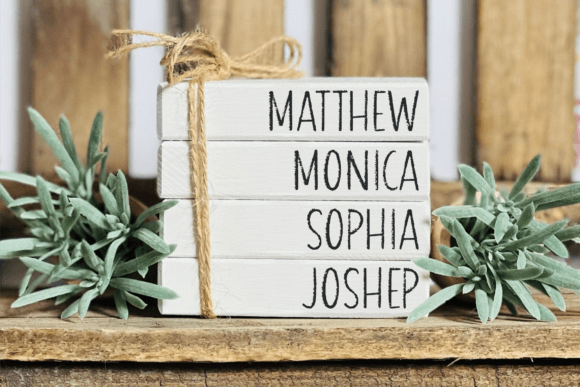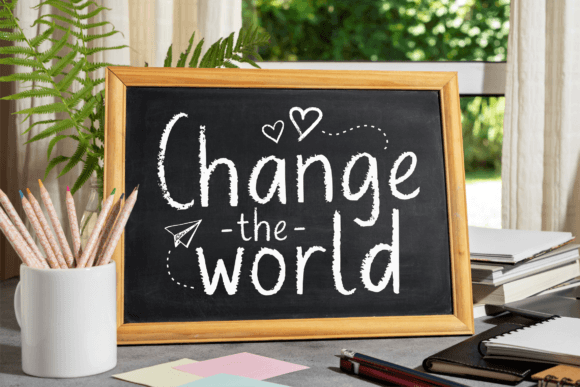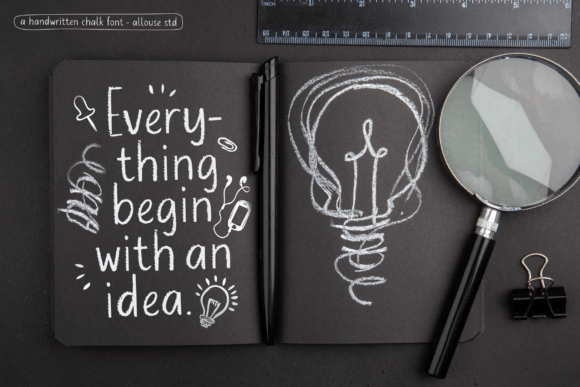
Introduction to Planet Chalky Font
Planet Chalky A Handwritten Chalk Display Font Planet Chalky is perfect for product packaging, branding project, magazines, social media, weddings, or just used to express words above the background.
👤 Author allouse.studio